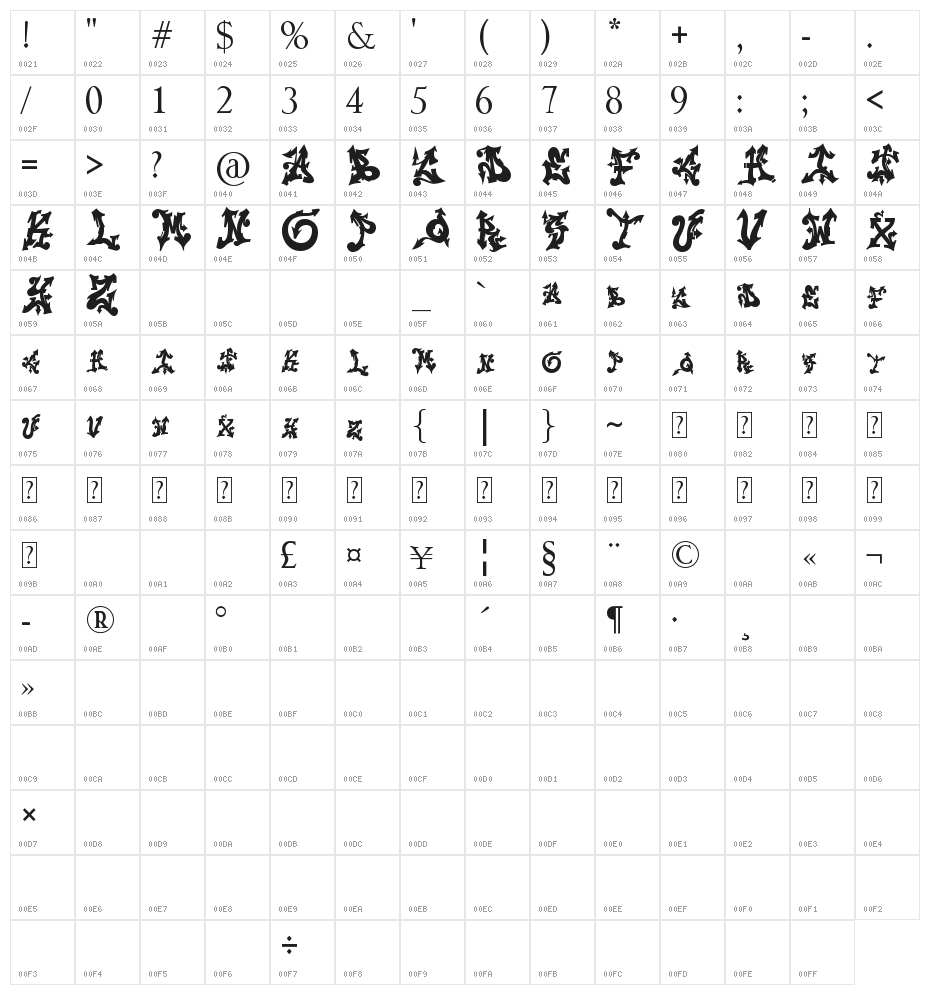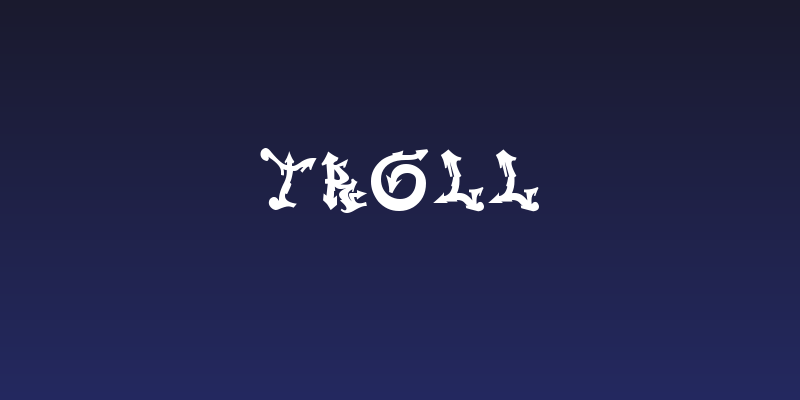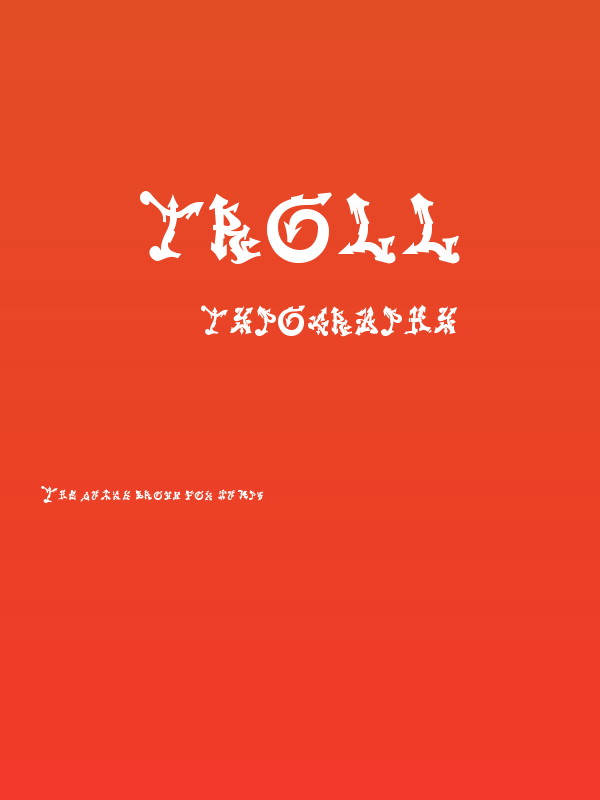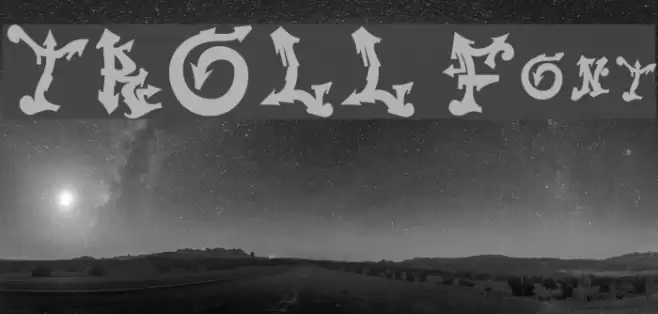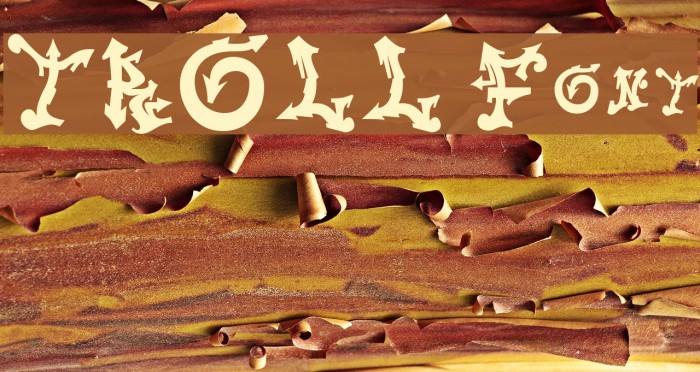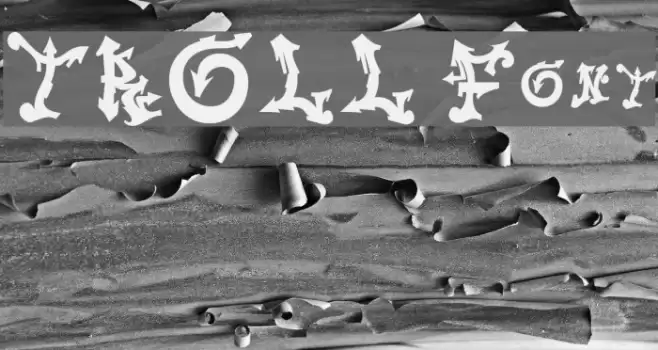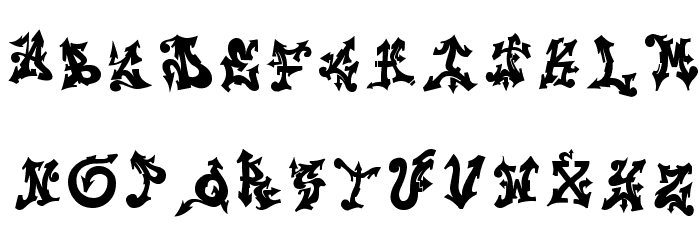
TROLL Font
TROLL Description
This font features an intricate and ornate design, characterized by sharp, angular edges and elaborate detailing. The uppercase letters are highly decorative, resembling a gothic or medieval style with a modern twist. The lowercase letters maintain the same intricate style, ensuring consistency throughout the typeface. The numerals are more straightforward, offering a clean and readable contrast to the elaborate letters. Special characters are included, matching the overall aesthetic with their unique and artistic flair. This font is ideal for projects that require a dramatic and eye-catching display, such as posters, album covers, or themed event invitations.
| Overall Style | Gothic, Decorative |
| Proposed Projects | Ideal for posters, album covers, themed event invitations, and any project needing a dramatic, eye-catching display. |